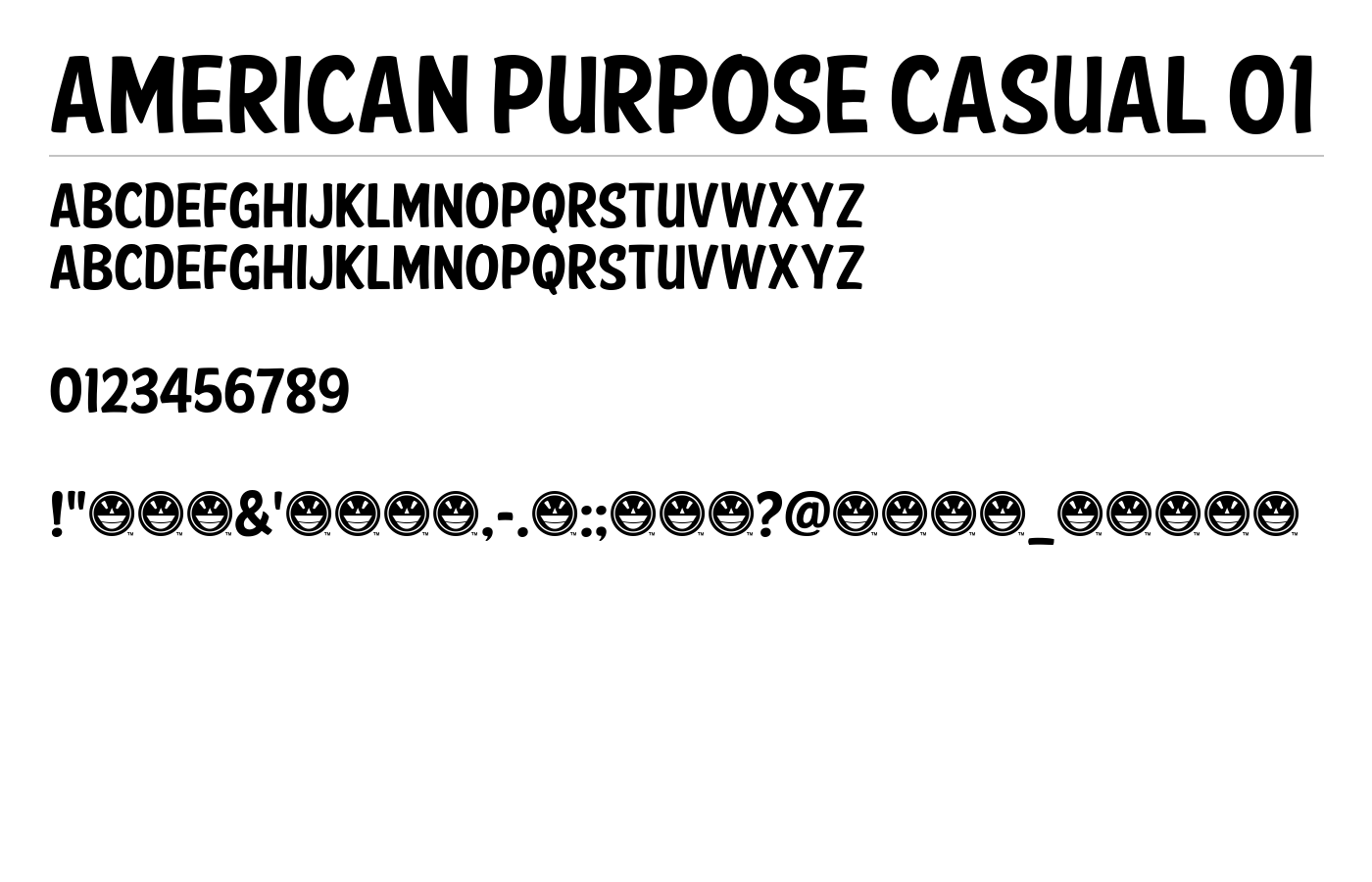
American Purpose Casual 01 is a bold, playful sans serif font with a friendly, informal vibe. Its slightly rounded, irregular letterforms and tight spacing give it a hand-crafted, approachable feel that works well in casual branding, posters, and headlines where personality and warmth are key. This font’s lively style makes it ideal for projects seeking a fun, inviting tone without sacrificing readability.
American Purpose Casual 01 Font
About American Purpose Casual 01 Font